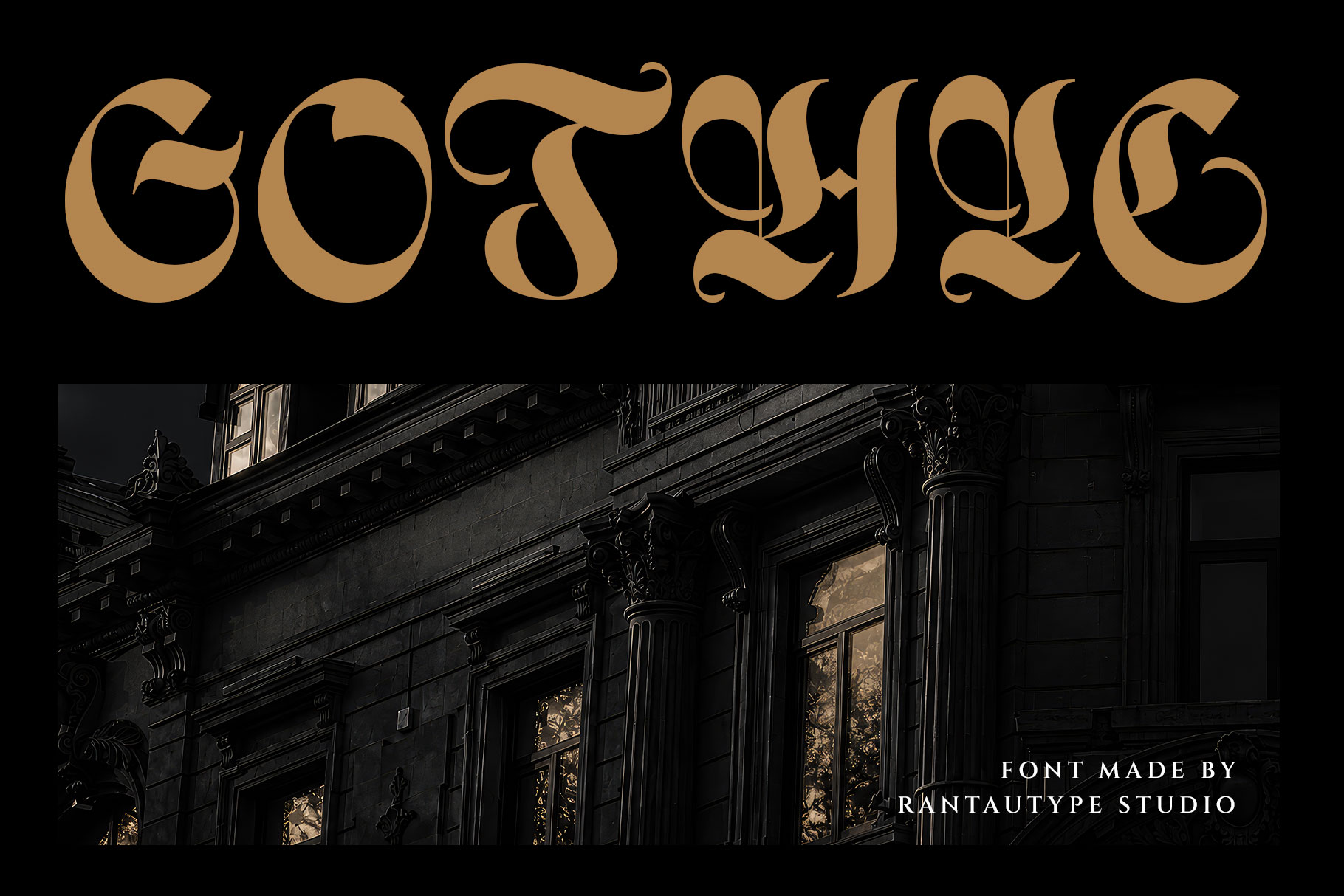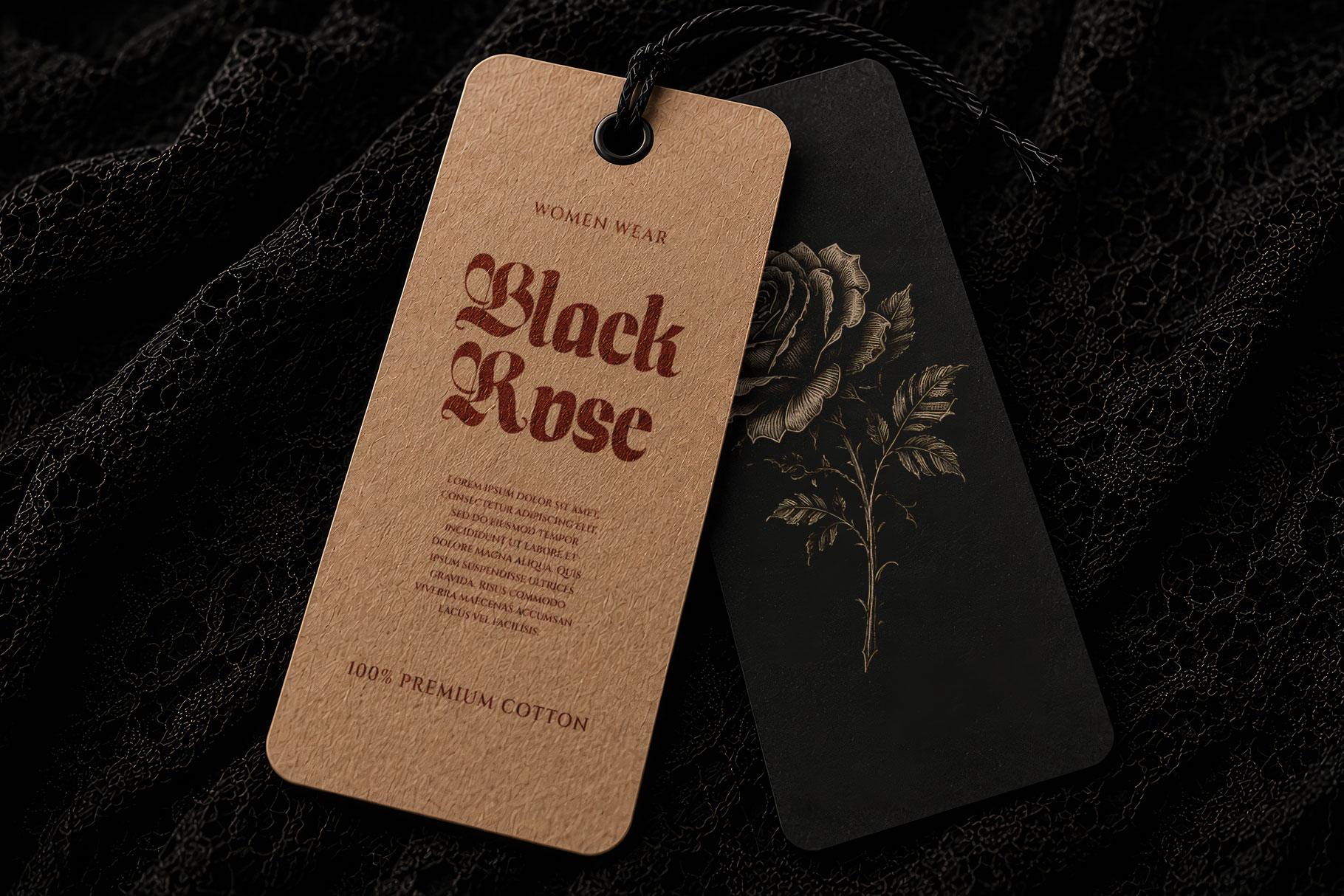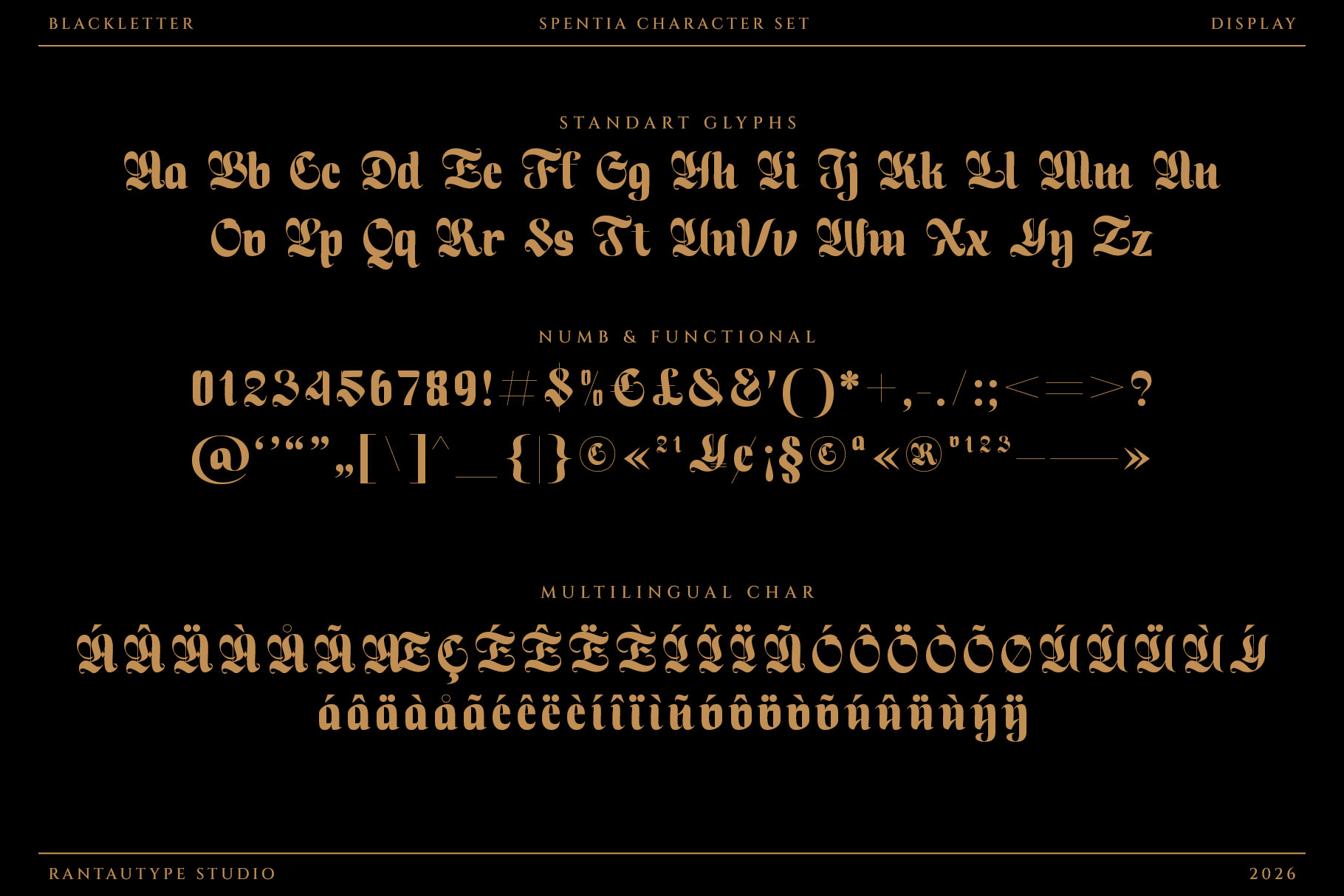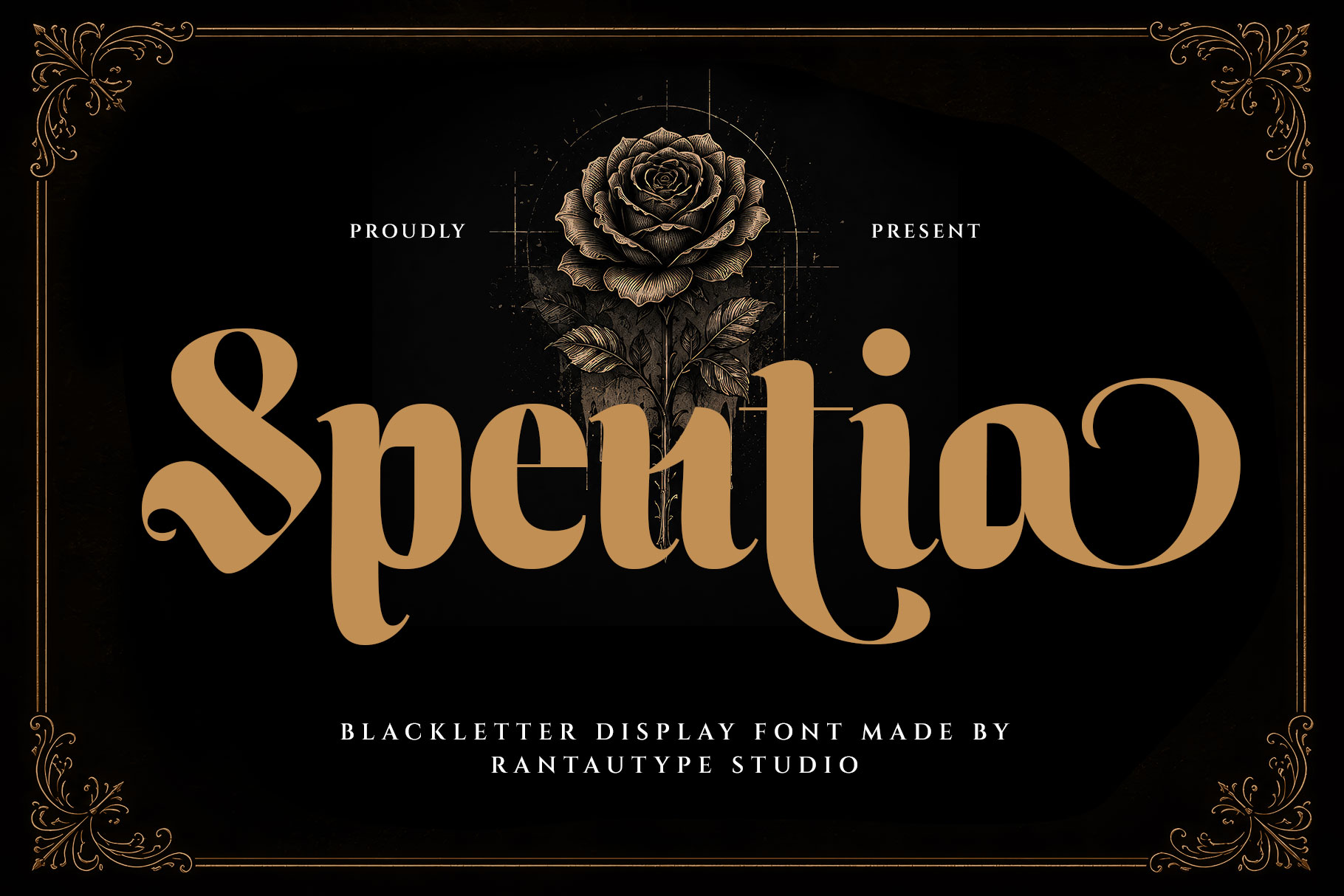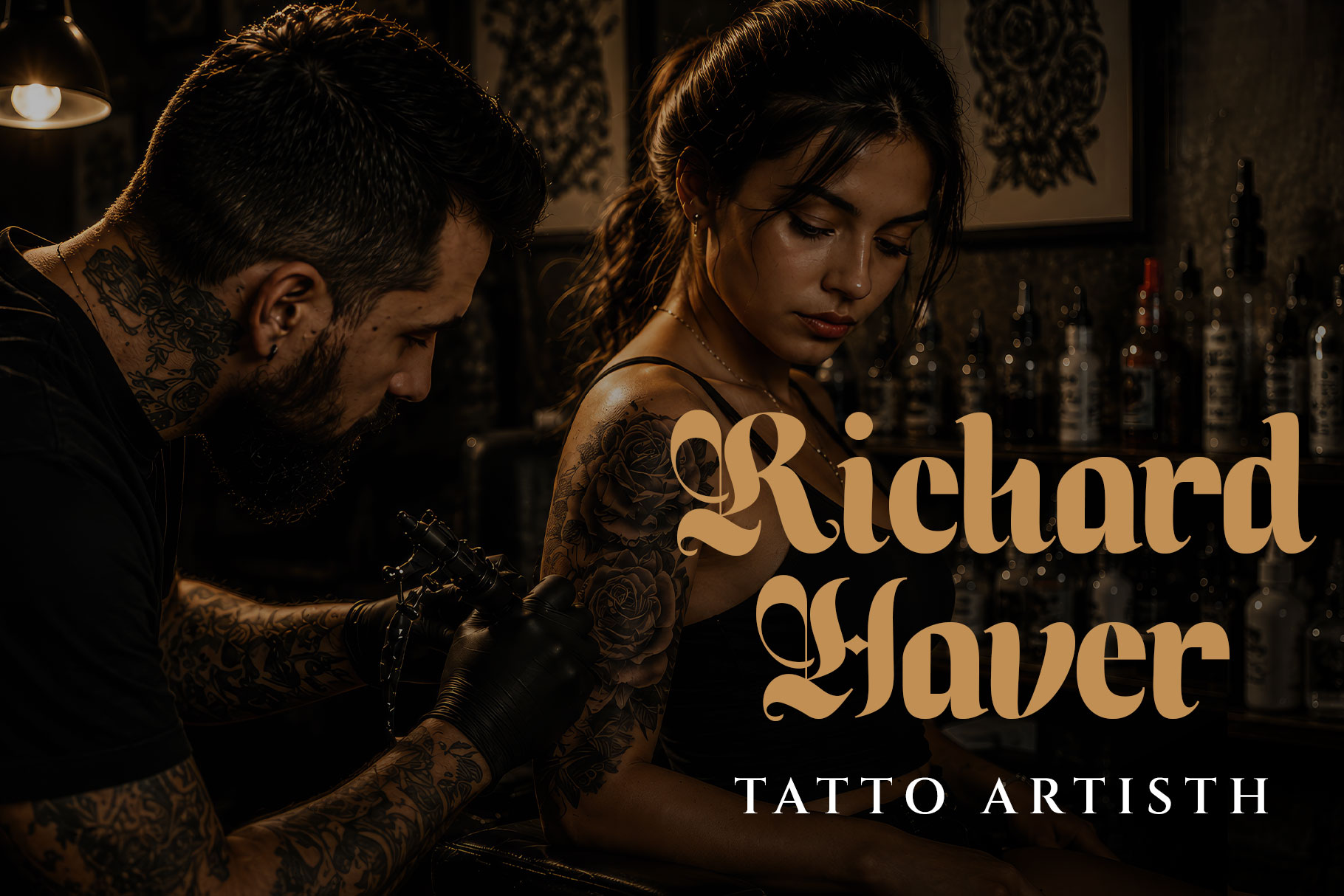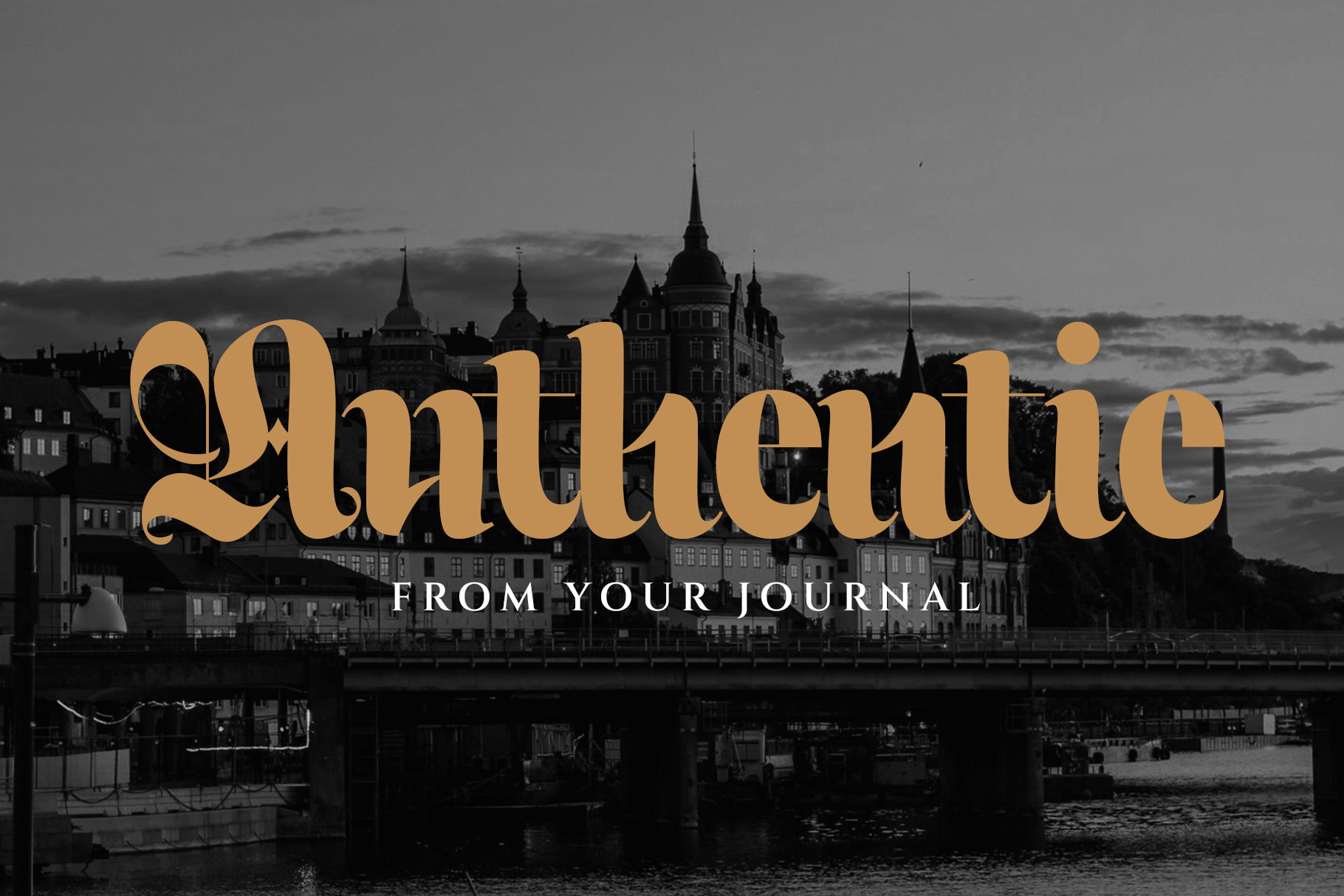
Spentia is a refined blackletter display typeface that transforms the dramatic heritage of Gothic lettering into a sophisticated modern branding font. While inspired by traditional blackletter calligraphy, it softens the rigid medieval structure with elegant curves, generous counters, and flowing terminals, creating a look that feels luxurious rather than intimidating.
Spentia a perfectly choice for any creative endeavor, creating, modern, lifestyle design such as logotype, title, cover, branding, invitations, wedding designs, display and magazine, social media posts, advertisements, printed quotes, product packaging, corporate brand, product designs, labels, photography, watermarks, special events and any other project with blackletter touch.